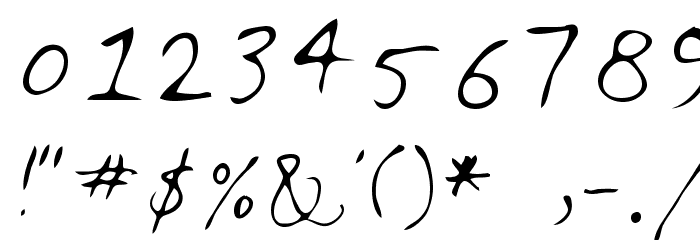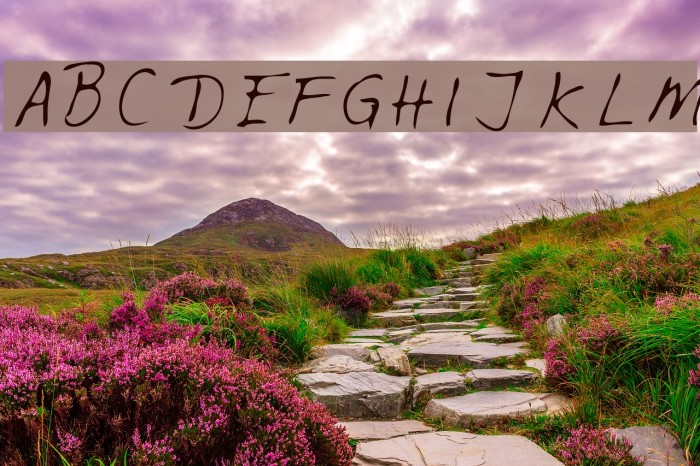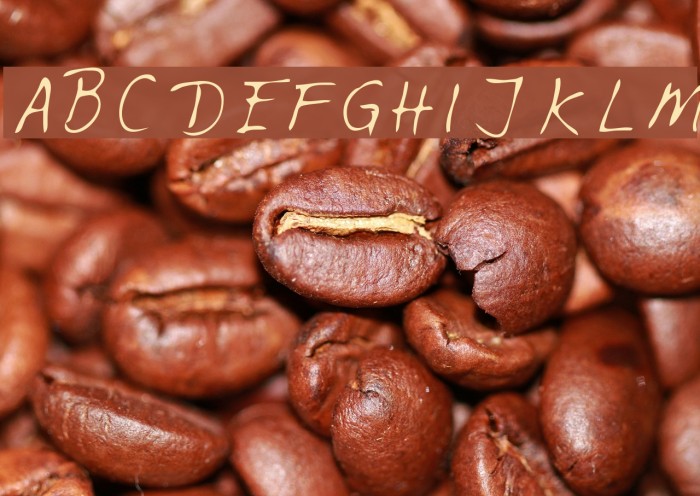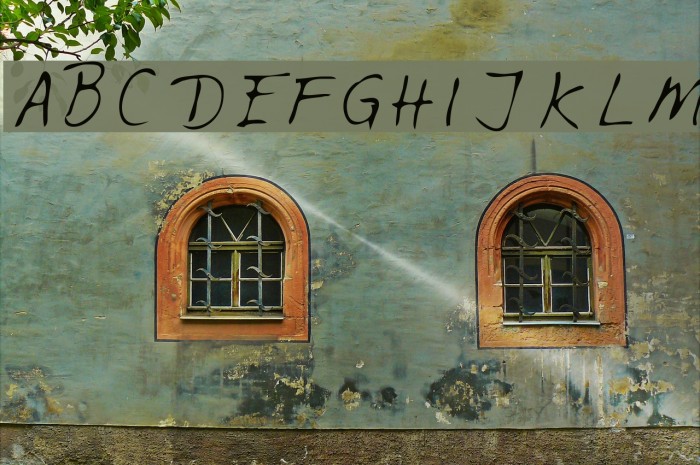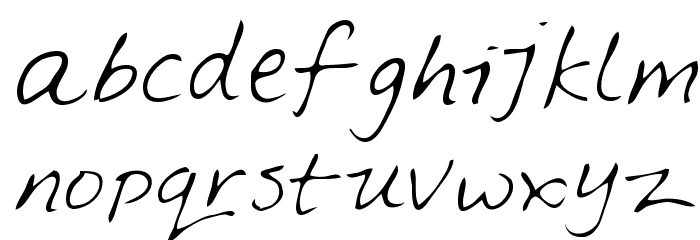
Feltpen Font
This font features a casual and organic handwritten style, reminiscent of writing with a felt-tip pen. The characters are slightly slanted, adding a dynamic and informal feel. The strokes are varied in thickness, giving it a natural and fluid appearance. The uppercase letters are bold and prominent, while the lowercase letters maintain a consistent flow, enhancing readability. The numerals and special characters are crafted with the same playful and spontaneous touch, making them blend seamlessly with the alphabet. This font exudes a friendly and approachable vibe, perfect for projects that require a personal touch.
A casual, handwritten font with a felt-tip pen style and dynamic slant.